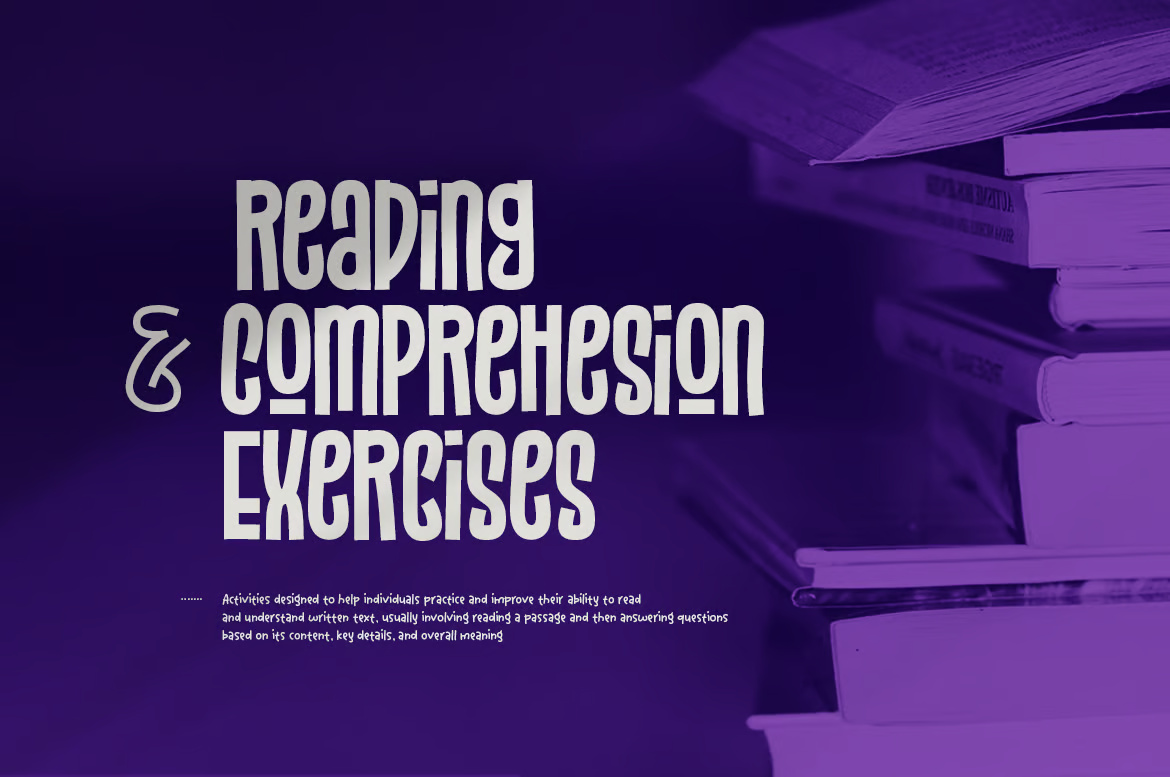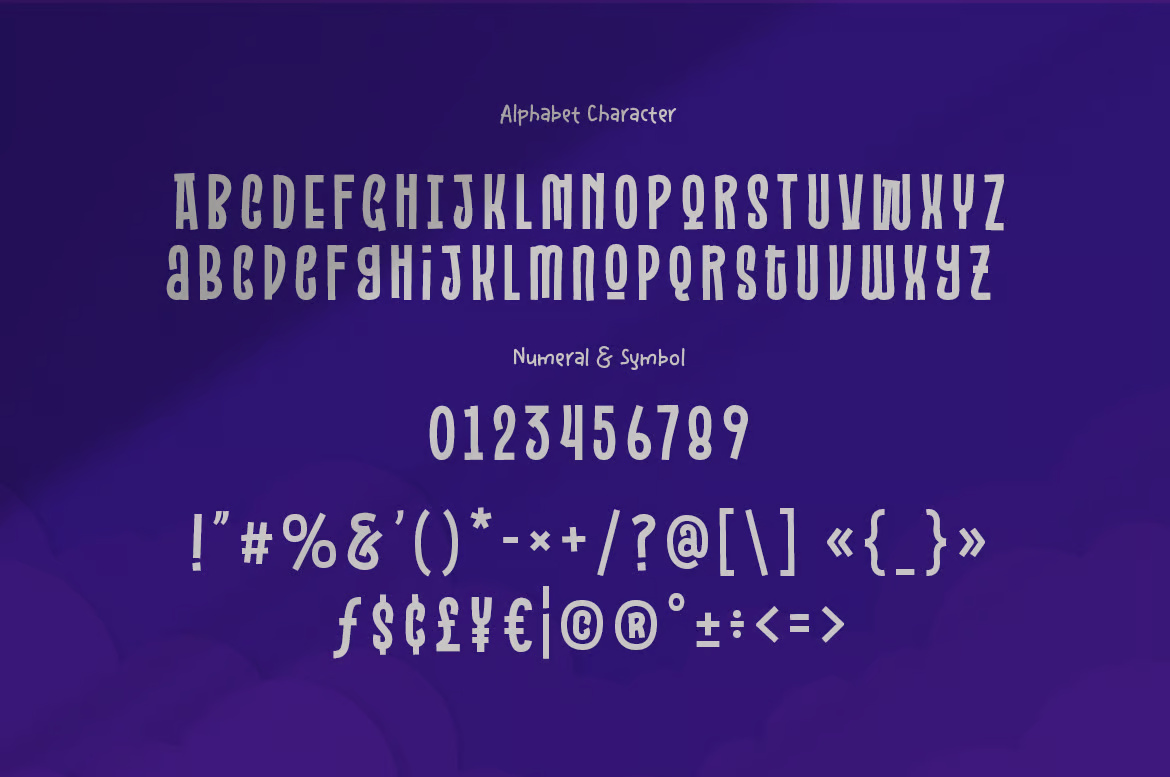
Klasico Font
Klasico is a stylish and condensed typeface that seamlessly blends modern elegance with a touch of handwritten charm. Designed to captivate, this unique font features a refined structure with sleek lines and an artistic flow, making it ideal for branding, editorial layouts, and sophisticated typography.
Available in three distinct styles—Regular, Light, and Blur—Klasico offers versatility for diverse design needs. The Regular style delivers a balanced yet expressive look, while the Light version enhances delicacy and refinement. The Blur style introduces a soft, dreamy effect, adding a contemporary edge to artistic projects.
Whether you’re designing a luxury brand, a modern editorial, or an eye-catching display piece, Klasico exudes sophistication, creativity, and modern aesthetics, making it a must-have for designers seeking a refined and distinctive typeface.